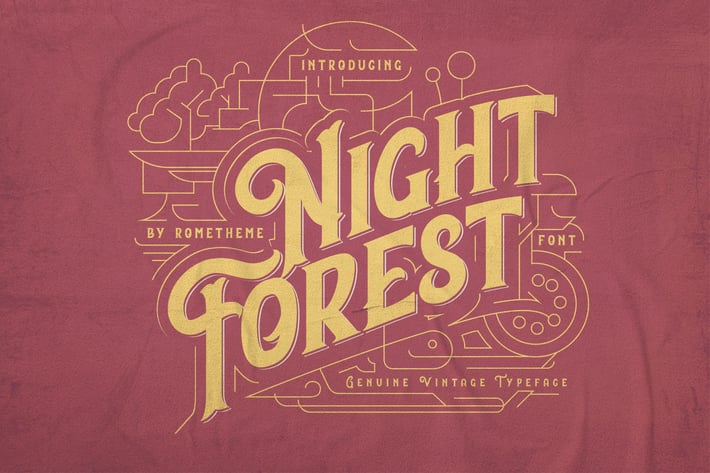
Night Forest - Vintage Font
Introducing Night Forest - Vintage Font Perfect for logotype, labels and packaging, branding, or any vintage-themed projects!
- Basic Latin A-Z and a-z
- Numbers
- Symbols
- Stylistic Set
- PUA Encode
- Multilanguage Support